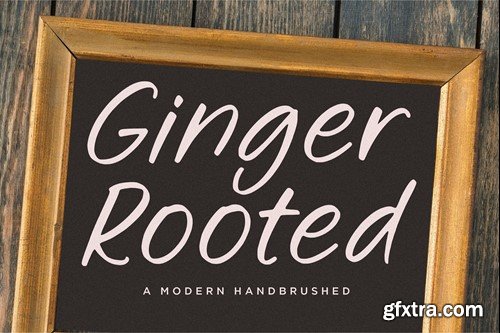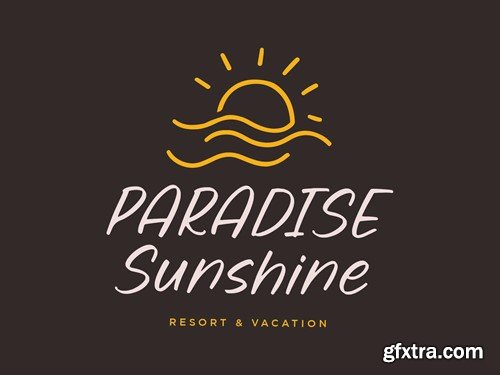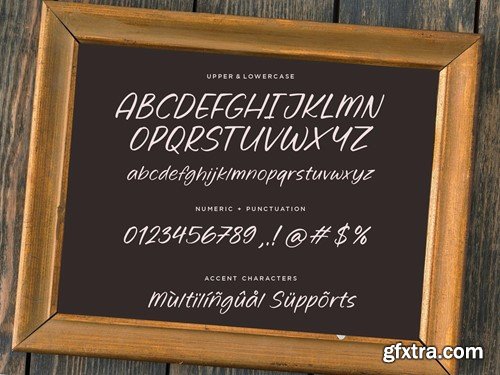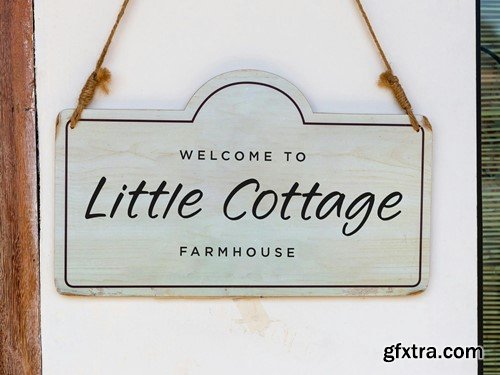
Ginger Rooted Script Font
Ginger Rooted is a Modern Handbrushed Font. Whether you’re using it for crafts, digital design, presentations, or making greeting cards, this font has the potential to become your favorite go-to font, no matter the occasion! This font includes Enjoy the font! Feel free to comment or feedback! Thank you! Design by : Balpirick Studio